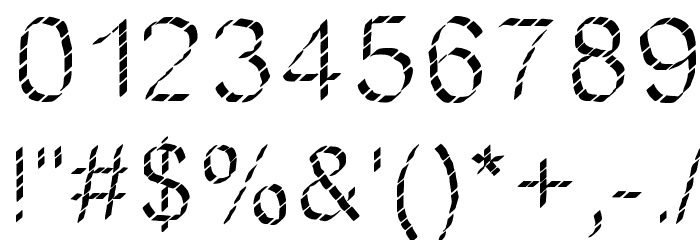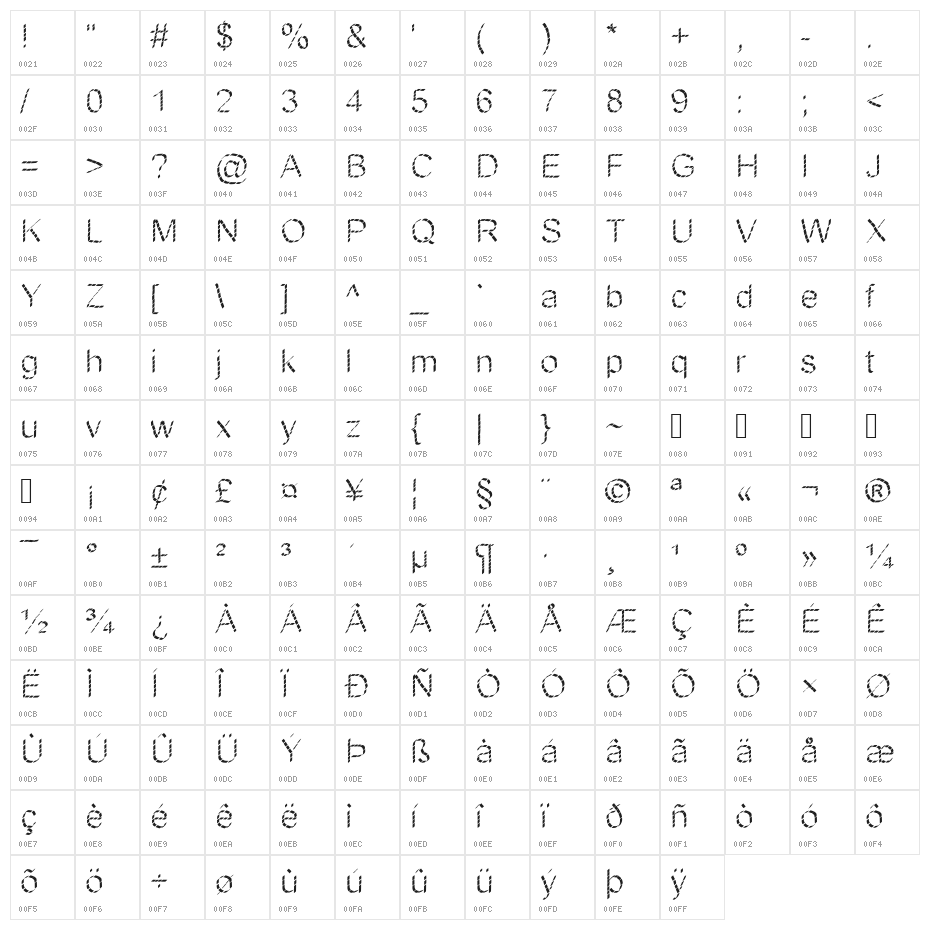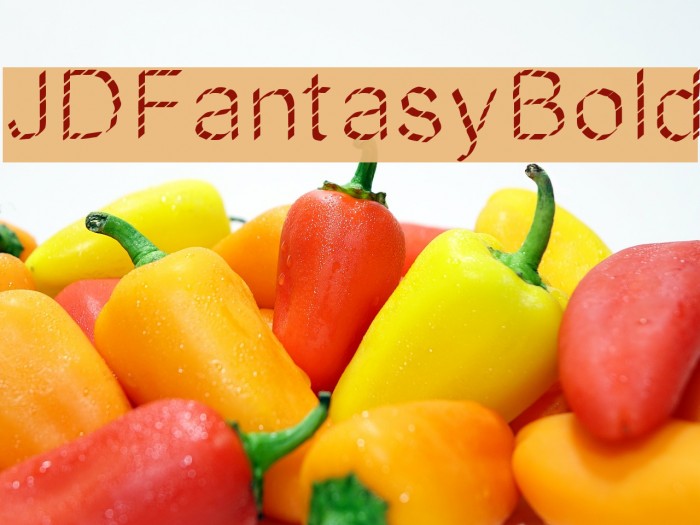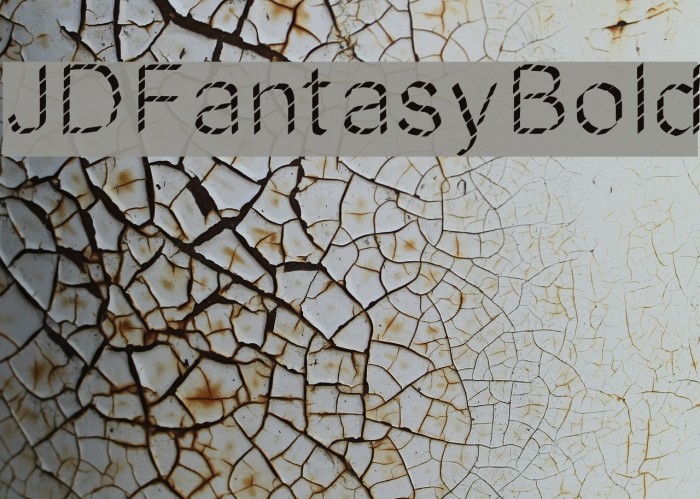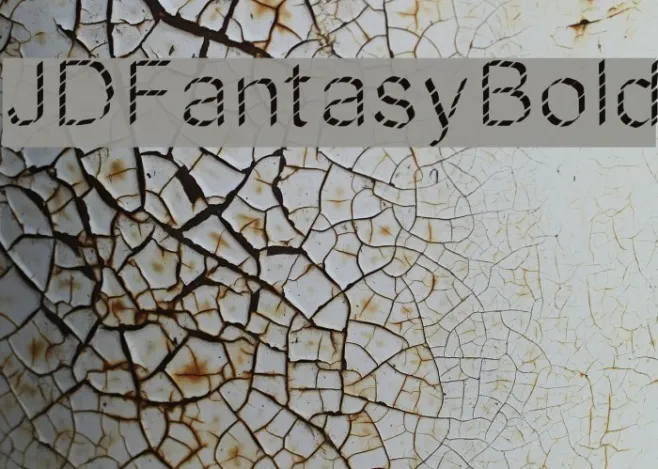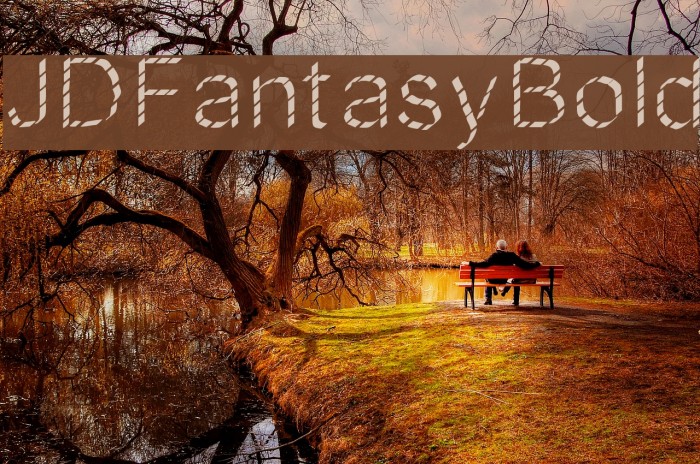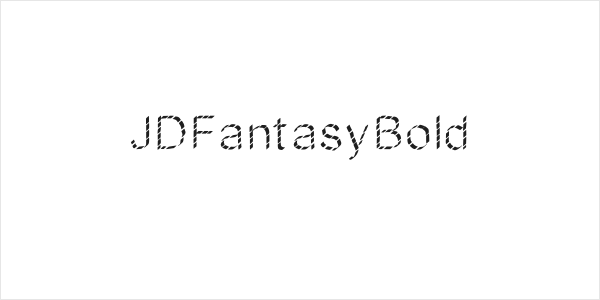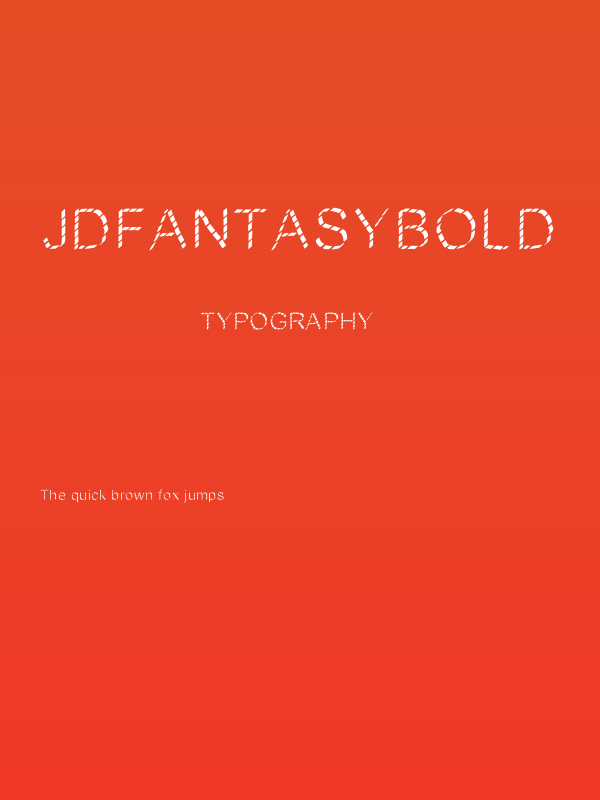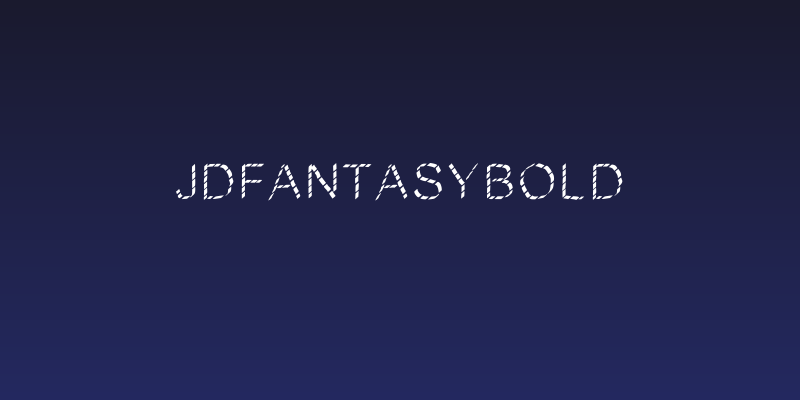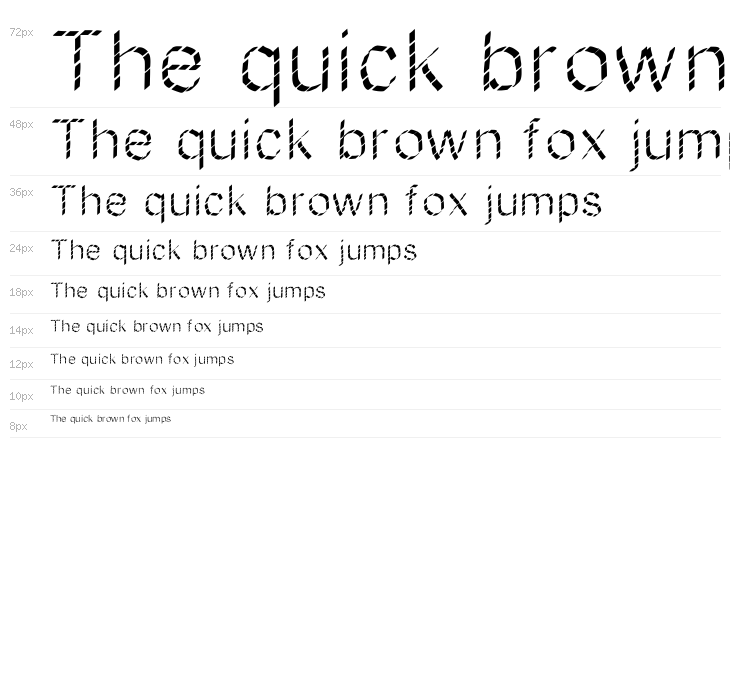
JDFantasyBold Font
JDFantasyBold Description
This font features a unique, decorative style with a bold, striped pattern running through each character. The uppercase and lowercase letters maintain a consistent design, creating a cohesive look. The numbers and special characters are equally stylized, making them stand out. The font's playful and eye-catching design makes it suitable for creative projects where a distinctive appearance is desired. The characters are evenly spaced, ensuring readability despite the intricate pattern.
| Proposed Projects | Ideal for posters, logos, and branding materials that require a bold and creative touch. |